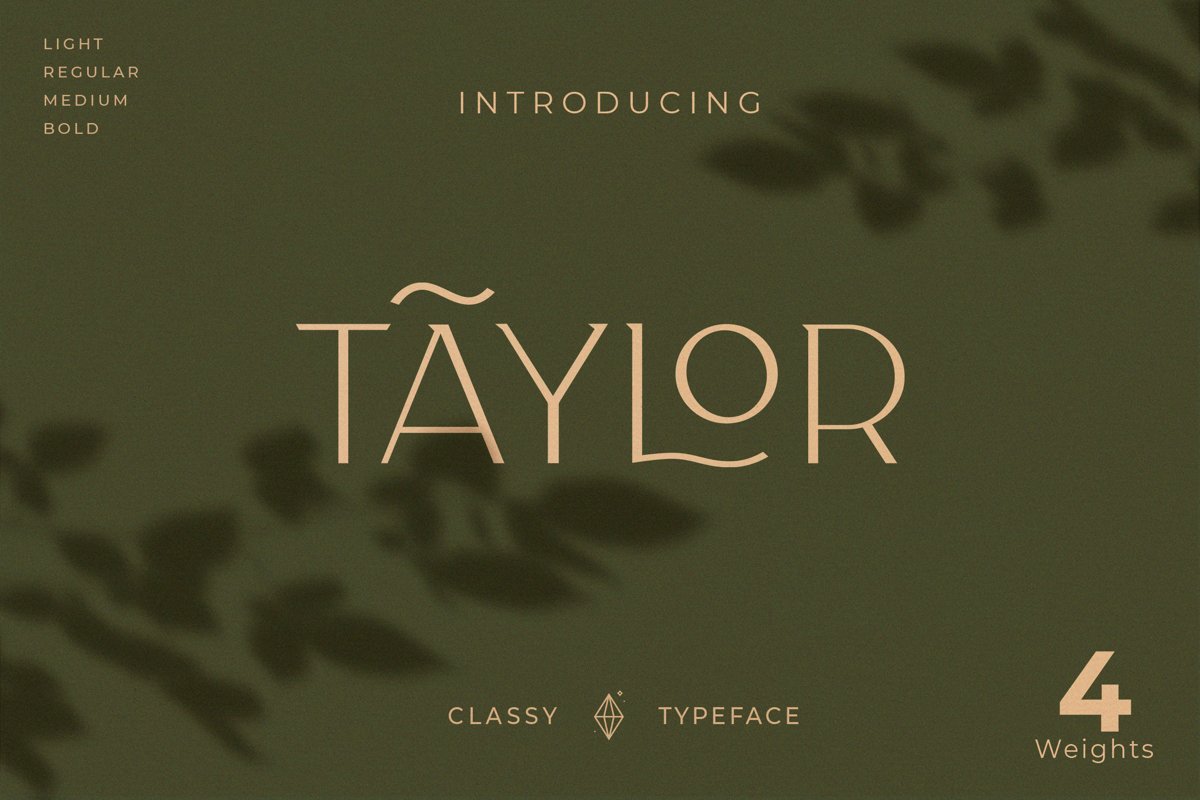
Taylor - Royal Classic Typeface
**Classy Taylor** is a Minimalist Modern Elegant vintage font with beautiful ligatures, tons of special alternative glyphs, ornament and multilingual support. It's a very versatile font that works great in large and small sizes. Classy Taylor is perfect for branding projects, Logo design, Clothing Branding, product packaging, magazine headers, or simply as a stylish text overlay to any background image.
**Features:**
* 4 Weights font
* All caps
* Stylistic Alternates & Ligatures
* Numerals & Punctuation
* Accented characters
* Multiple Languages Supported